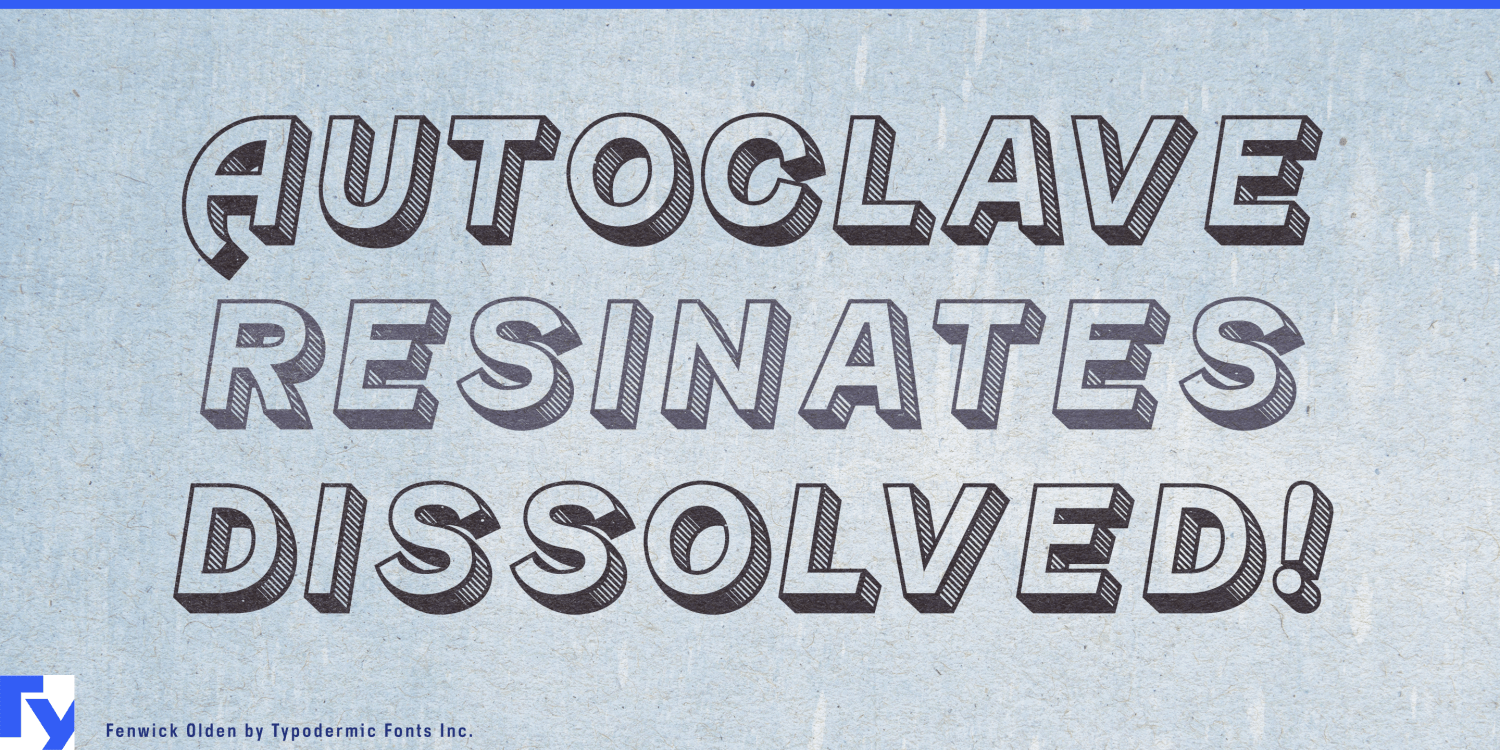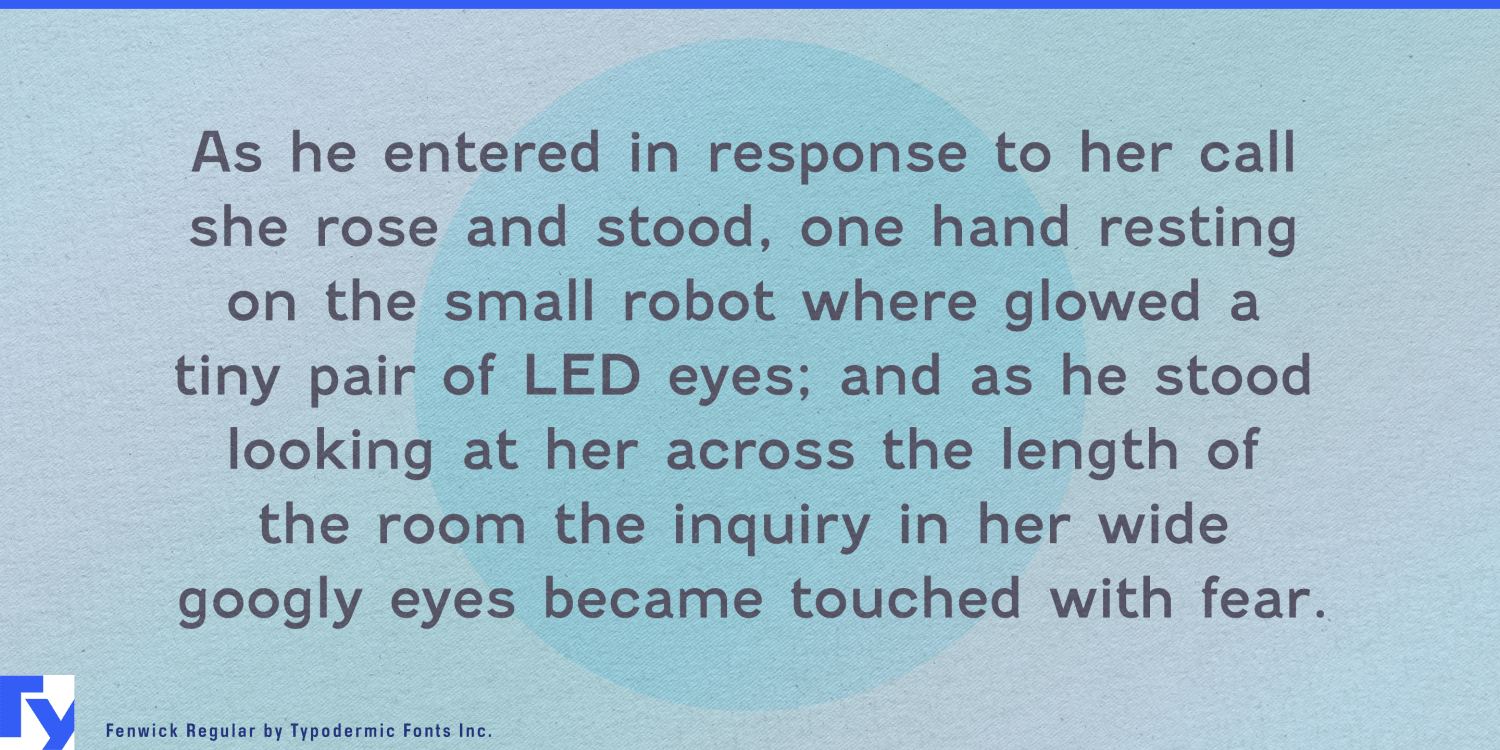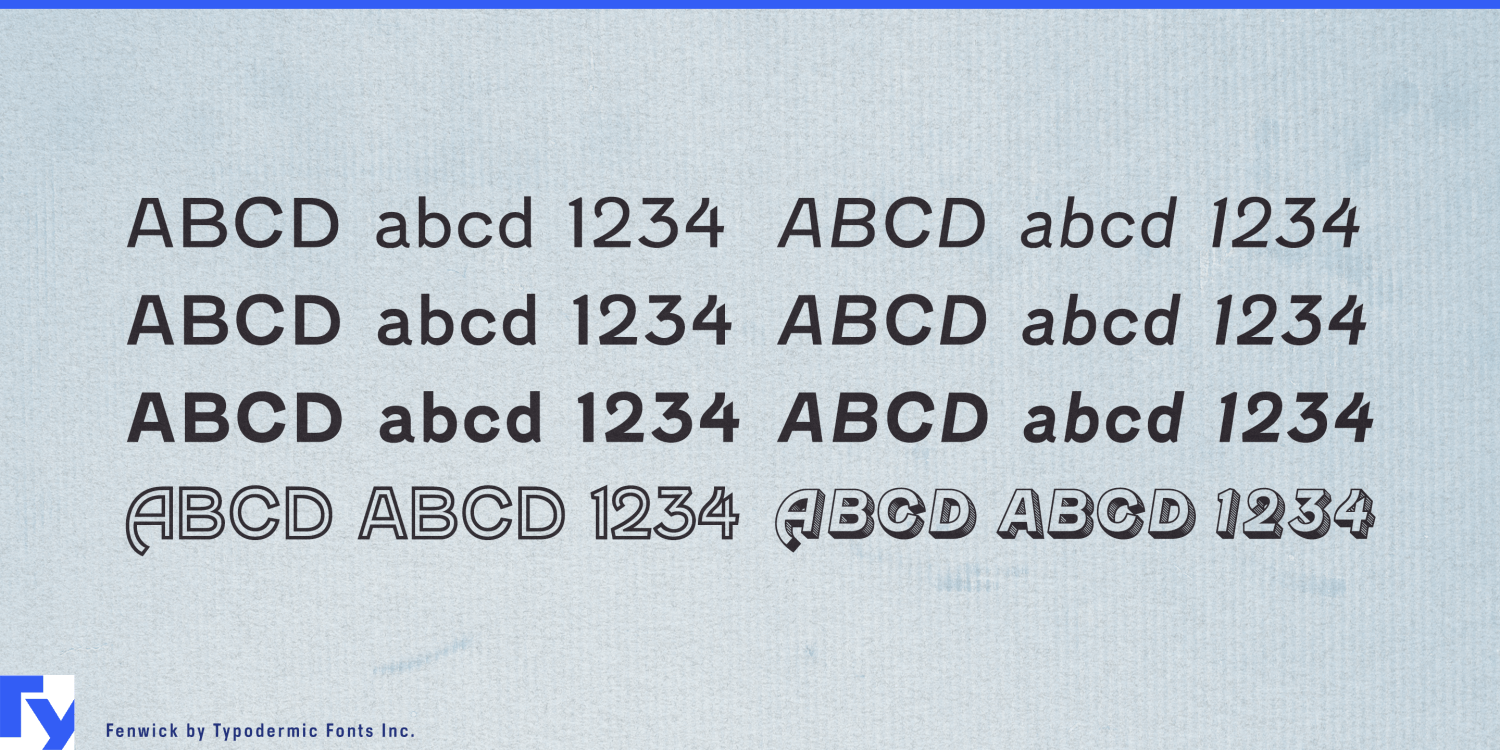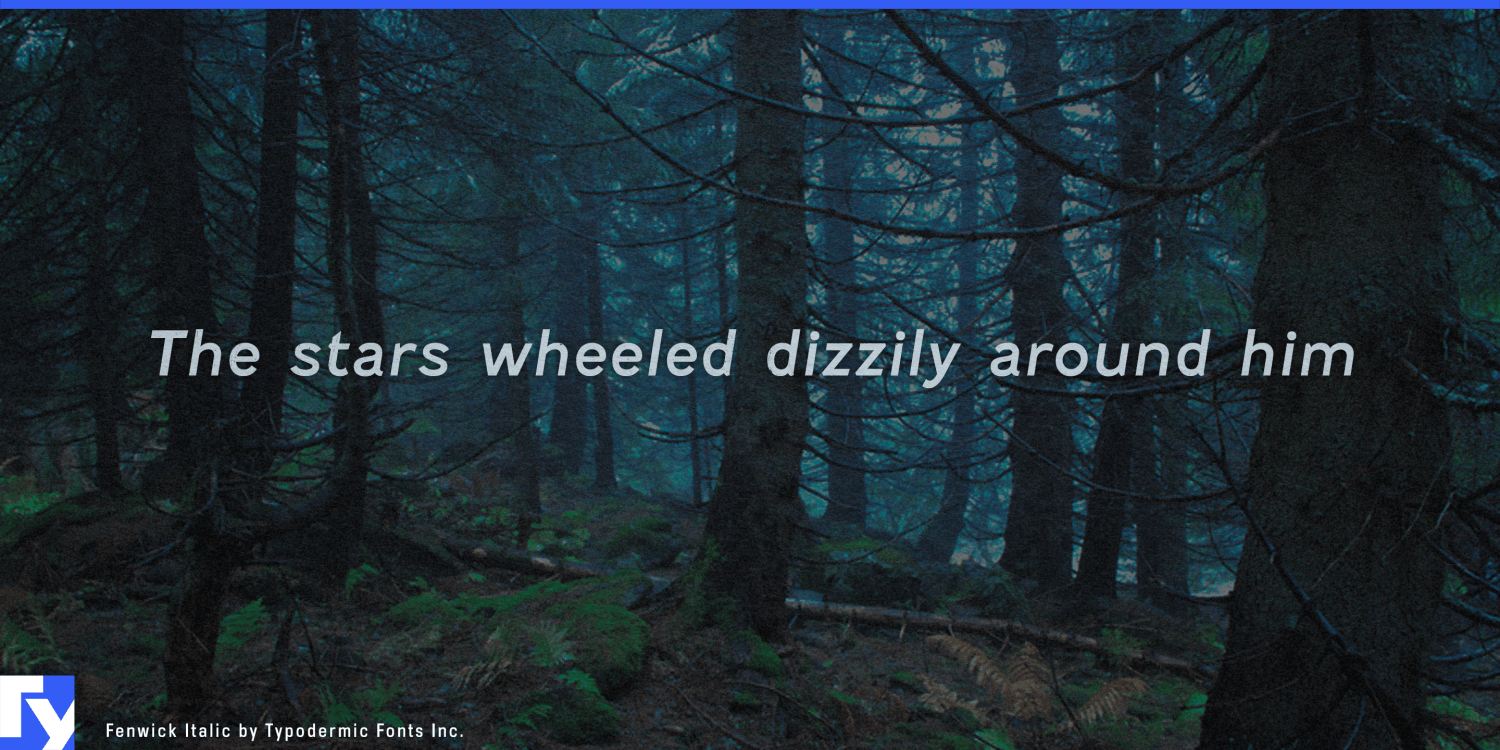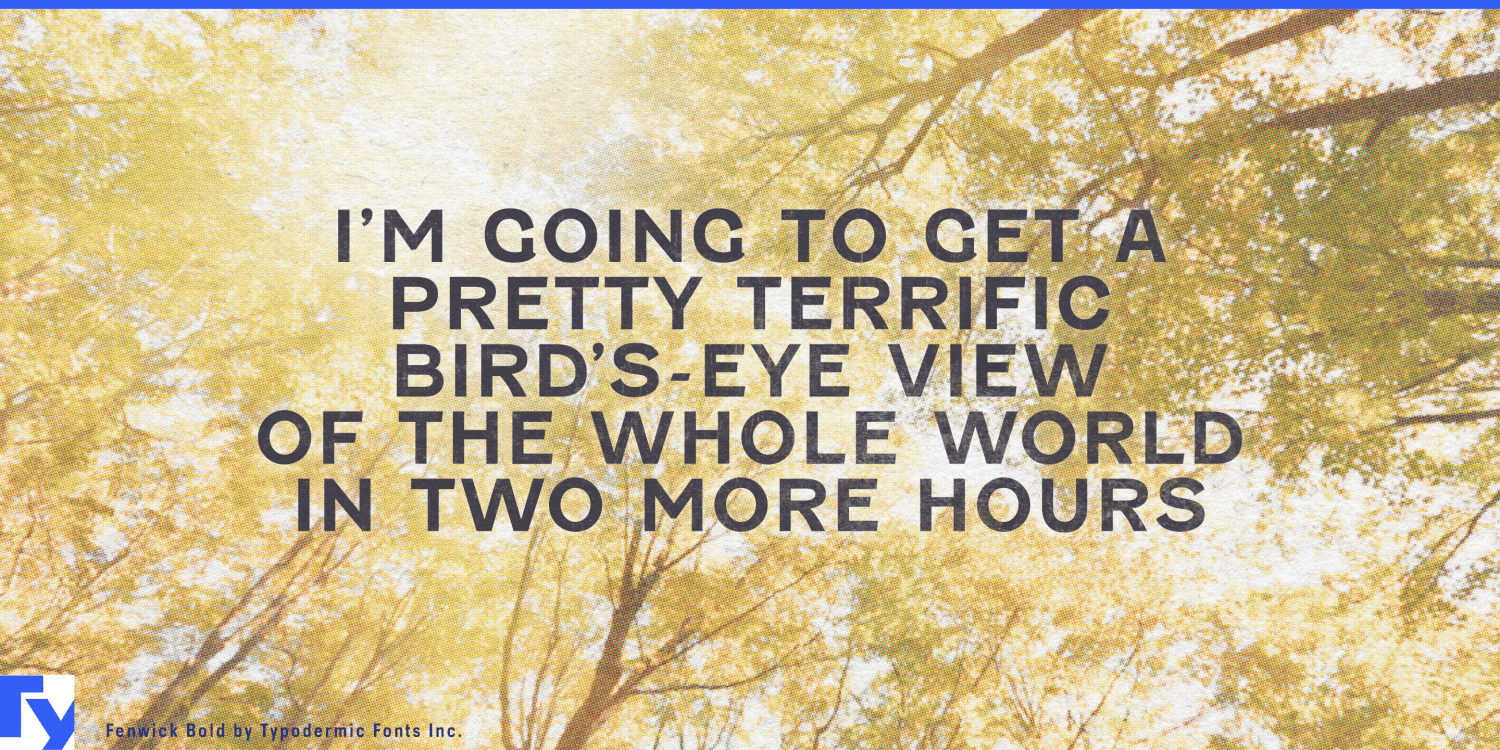
Fenwick
About Fenwick
Step back in time with Fenwick, a typeface that breathes new life into the rich typographic traditions of late 19th-century Ontario. This is a bridge between eras, seamlessly blending the robust character of gothic sans-serifs with the refined grace of…